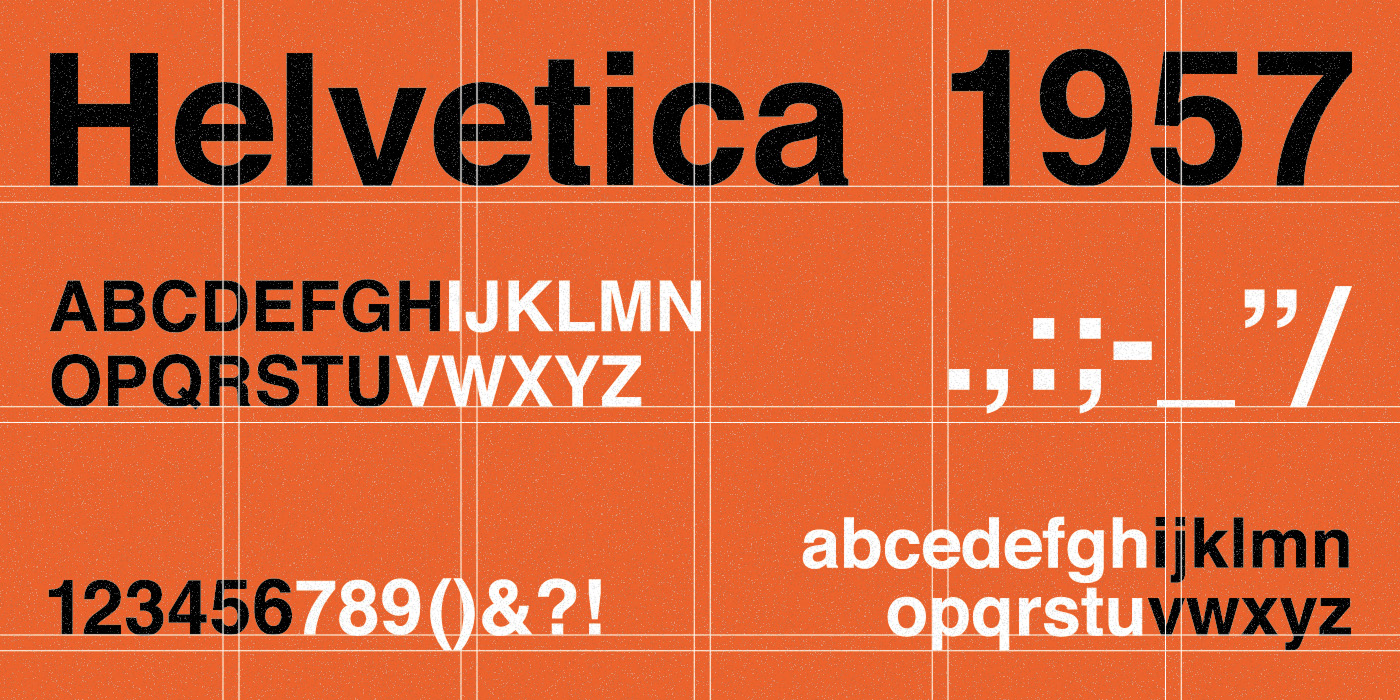
Almost every computer in the world has the Helvetica typeface installed. Today, Helvetica is a widely used font family that has not only survived the test of time but has become a symbol of minimalism, order, function, and the Swiss Style. From pharma to airlines, Helvetica is everywhere — from iconic logos that live in our brains without paying rent to the title of the school document you wrote in 2010.
Helvetica is considered a classic nowadays, so much so that in the design world, it’s sometimes seen as a “turn down” or an “easy,” even “unexciting” choice when it comes to picking a typeface. It’s great, it was great, and it will continue to be great. But with so many neo-grotesque alternatives out there (some of which we’ll add at the end of this article), the creative director of your studio knows you can do better than Helvetica, unless you are doing the corporate identity of the swiss embassy, or the cover for Dieter Ram’s biography.
When choosing design elements for a project, understanding the context, origin, and meaning is crucial. This is especially true for typography. So, if you’re choosing Helvetica for your next editorial project or branding wordmark, get ready to travel back in time to Switzerland and discover the power of simplicity and function.
What Is a Neo-Grotesque Typeface? A fancy way of saying ugly
Helvetica is categorized as a neo-grotesque typeface. The term “grotesque” dates back to the 19th century when sans-serifs were new and considered “strange” or “ugly” compared to the more ornate serif fonts of the time. Imagine John Baskerville being shown a specimen without embellishments—its raw simplicity might have seemed sloppy, even unbearable to see, much less something you would waste ink, paper and time on. The first sans serif specimen is known as “Two Lines English Egyptian” or “Caslon Egyptian,” was created by William Caslon IV around 1816.
A detail from the 1819 Specimen of Printing Types (published by Blake, Garnett, and Co., Sheffield), showing William Caslon IV’s groundbreaking typeface, ‘Two Lines English Egyptian’. Courtesy of St Bride Foundation.
Helvetica’s creation
In 1957, a “new” grotesque was born. Helvetica, initially named Neue Haas Grotesk, made its debut in the land of the cantons: Switzerland. Crafted by typeface designer Max Miedinger alongside Eduard Hoffmann’s art direction at the Haas Type Foundry, this international style typeface represented the movement’s core principles: neutrality and exceptional legibility.
Yet, even today, reflecting on what we know now and on how Helvetica inhabits a specific cultural imaginarium, one cannot help but wonder if true neutrality is ever possible. Probably not. Much like Switzerland’s supposed neutrality in politics, Neue Haas Grotesk was renamed Helvetica in 1960 to emphasize its Swiss roots (“Helvetia” in Latin). Its versatility made it the perfect choice for signage, branding, and a broad spectrum of communication needs. Everywhere you look, Helvetica.
Helvetica is one of the key elements for the visual identity and signage of subways around the world, including New York and Toronto.
The International Style and Its Modernist Roots
Simplicity, grids, objectivity—and of course, sans serif typefaces. The International or Swiss Style emerged from modernism, influenced by movements like Bauhaus, De Stijl, and Constructivism around the 1950s. The movement’s philosophy? Design is a tool for clear communication, suppressing personal expression.
In order: The Bauhaus building, Contra-Construction Project (Axonometric) by Theo van Doesburg and Cornelis van Eesteren (1923), “Books” poster by Alexander Rodchenko (1924).
Form follows function. This philosophy still echoes in design schools worldwide. Key figures like Armin Hofmann and Josef Müller-Brockmann, students of Ernst Keller, shaped this timeless style, that shape a generation and the future of design history. Helvetica is the result of this, a clear representation of Swiss Style thanks to its clean, neutral, and highly legible design.
Graphic design works by Armin Hofmann, Josef Müller-Brockmann, and Ernst Keller respectively.
The Rise and Global Impact of Helvetica
Impressively, Helvetica was initially better known in the U.S. during the 1960s than in Europe. As a matter of fact, this typeface wasn’t just popular; it became a standard used by great brands during that time.
You can still find the Helvetica typeface in historic logos and brand identities such as American Airlines, BMW, Target, NASA, and let’s not forget the typography used by the iconic New York Metro—yes, Helvetica. Ironically, this typeface was more prevalent in the U.S. than in the land of the Swiss, Helvetia.
With Helvetica, the International (Swiss) style conquered the world. Later on, Helvetica was also in your house and forever part of digital culture: Steve Jobs famously made Helvetica a system font on the Macintosh, cementing its presence in digital culture.
Some of the most famous logos using Helvetica as their main typeface.